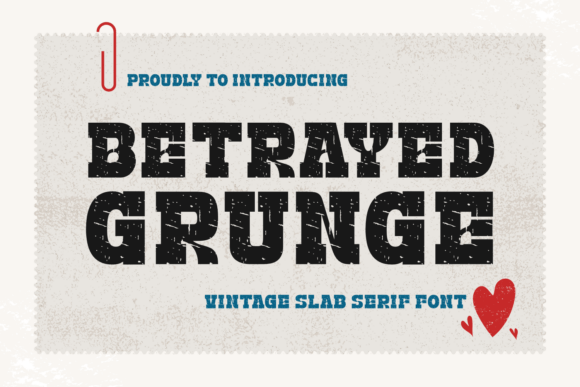
Unleash the Raw Allure of Betrayed Grunge: A Font that Embodies Vintage Rebellion
I still remember the design project that led me to discover Betrayed Grunge. I was working on a retro-themed poster for a local music festival, and I was struggling to find the perfect font that captured the essence of the 90s grunge era. That’s when I stumbled upon Betrayed Grunge, and it instantly became the star of my design.
As a designer, I was immediately drawn to Betrayed Grunge’s unique blend of rugged and bold typography. Here are a few things that I love about this font:
• ✨ Rugged yet refined: Betrayed Grunge masterfully balances rough, grunge-inspired scratches with sharp, precise detailing.
• ✅ Perfect for vintage and cinematic themes: This font is tailor-made for designs that require a touch of nostalgia and rebellion.
• 💥 Attention-grabbing: Betrayed Grunge is sure to make your designs stand out from the crowd with its bold, eye-catching typography.
Of course, no font is perfect, and Betrayed Grunge has a few quirks to keep in mind:
• ⚠️ Limited use in body text: Due to its bold and rugged nature, Betrayed Grunge might not be the best choice for lengthy body text.
• 🤔 Glyph compatibility: Some glyphs might not work seamlessly with certain software or platforms, so be sure to test them thoroughly.
If you’re looking for similar fonts or alternatives to Betrayed Grunge, here are a few options:
• Rock Salt: A distressed, handwritten font with a similar rugged feel to Betrayed Grunge. Use it for designs that require a more casual, laid-back vibe.
• Bebas Neue: A bold, modern font with a grunge-inspired edge. Use it for designs that require a strong, attention-grabbing presence.
• Stencil: A classic stencil font with a rugged, industrial feel. Use it for designs that require a strong, utilitarian look.
• Graffiti: A bold, handwritten font with a similar edgy feel to Betrayed Grunge. Use it for designs that require a more playful, artistic vibe.
Betrayed Grunge was created by a team of designers who were passionate about capturing the essence of the 90s grunge era. Inspired by the likes of Kurt Cobain and Eddie Vedder, they set out to create a font that embodied the raw energy and rebellious spirit of the era. Through countless hours of research and design iteration, Betrayed Grunge was born – a font that seamlessly blends rugged, grunge-inspired elements with refined, precise detailing.
What is the best use case for Betrayed Grunge? Betrayed Grunge is perfect for designs that require a touch of nostalgia and rebellion, such as vintage-themed posters, cinematic branding, and music festival artwork.
Is Betrayed Grunge suitable for body text? Due to its bold and rugged nature, Betrayed Grunge might not be the best choice for lengthy body text. However, it can be used for short paragraphs or headings.
Are there any similar fonts to Betrayed Grunge? Yes, some similar fonts to Betrayed Grunge include Rock Salt, Bebas Neue, Stencil, and Graffiti. Each of these fonts has its own unique personality and can be used for different design projects.